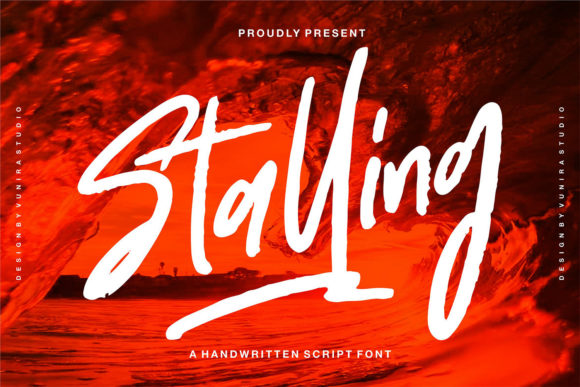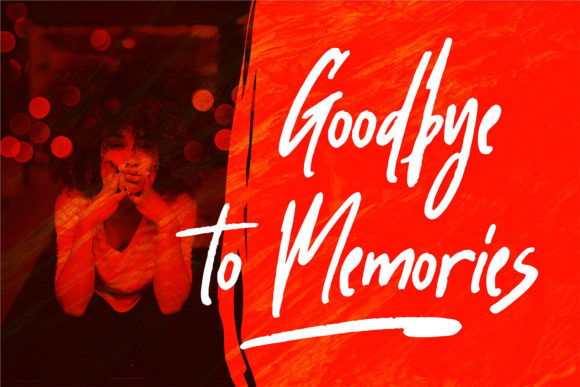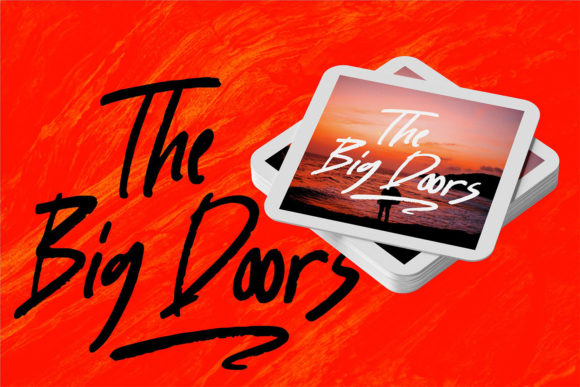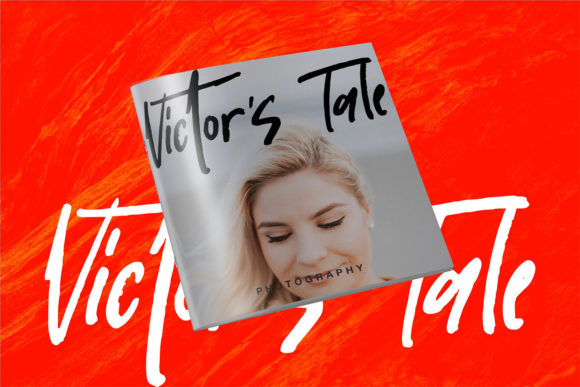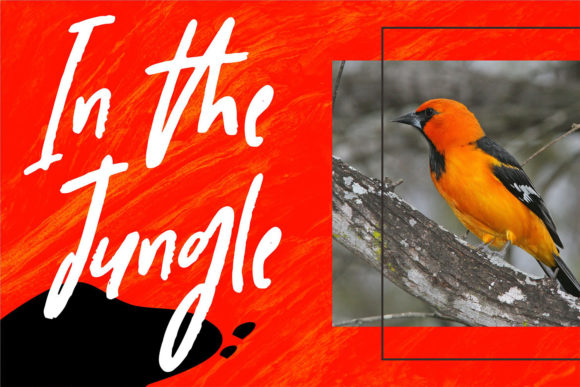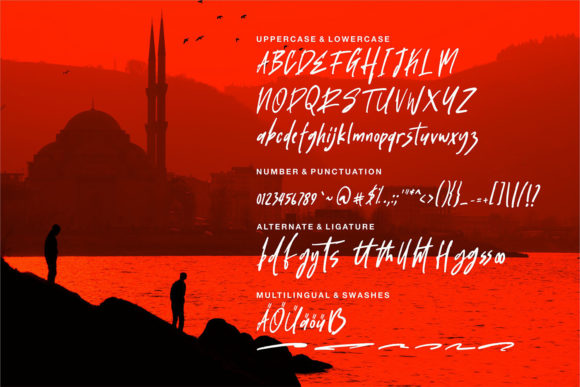
Stalling Font
About Stalling Font
Stalling is a unique and captivating handwritten font that brings a cool and stylish edge to your designs. With its asymmetrical and slightly creepy appearance, this font is perfect for adding a touch of intrigue and mystery to your projects. Whether you’re working on posters, album covers, Halloween-themed designs, or any other creative endeavor, Stalling will make a bold statement.
The distinctive and edgy nature of Stalling sets it apart from traditional handwritten fonts. Its irregular letterforms and unique character shapes give it a sense of unpredictability and unconventional charm. This font is designed to push boundaries and break free from the norm, making it an excellent choice for projects that aim to stand out and captivate the viewer.
Stalling’s asymmetrical style adds an element of visual interest and dynamism to your typography. The uneven letter heights and varying proportions create a sense of movement and playfulness. This font breaks away from traditional symmetrical designs, allowing you to experiment with layout and composition in exciting and unconventional ways.
While Stalling has a slightly creepy vibe, it also exudes a cool and stylish aesthetic. It combines the unexpected with a sense of confidence, making it a versatile font for a range of projects. Whether you’re working on alternative fashion branding, dark-themed designs, or anything that calls for an edgy touch, Stalling will deliver a visually striking result.
Add Stalling confidently to your favorite creations and let its unique charm and style amaze you. Embrace the unconventional and let this font become a powerful tool for expressing your creativity and individuality. Stalling’s distinctive appearance will captivate viewers and create an unforgettable impact.
Explore the possibilities that Stalling offers and let your imagination run wild. Its cool and stylish nature, combined with its asymmetrical and slightly creepy design, opens up a world of creative opportunities. Use Stalling to add intrigue, excitement, and a touch of the unexpected to your designs, and be prepared to be amazed by the outcome it generates.